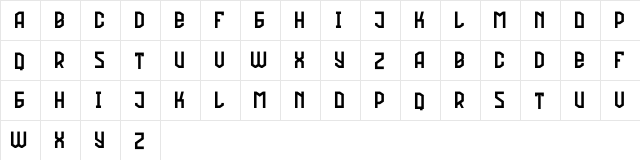
Football Attack Regular
| Designer | Dedi Tri Anggara |
Design Context for Football Attack Typeface
Football Attack is a composed and adaptable typeface that performs quietly and consistently across a wide range of design contexts.